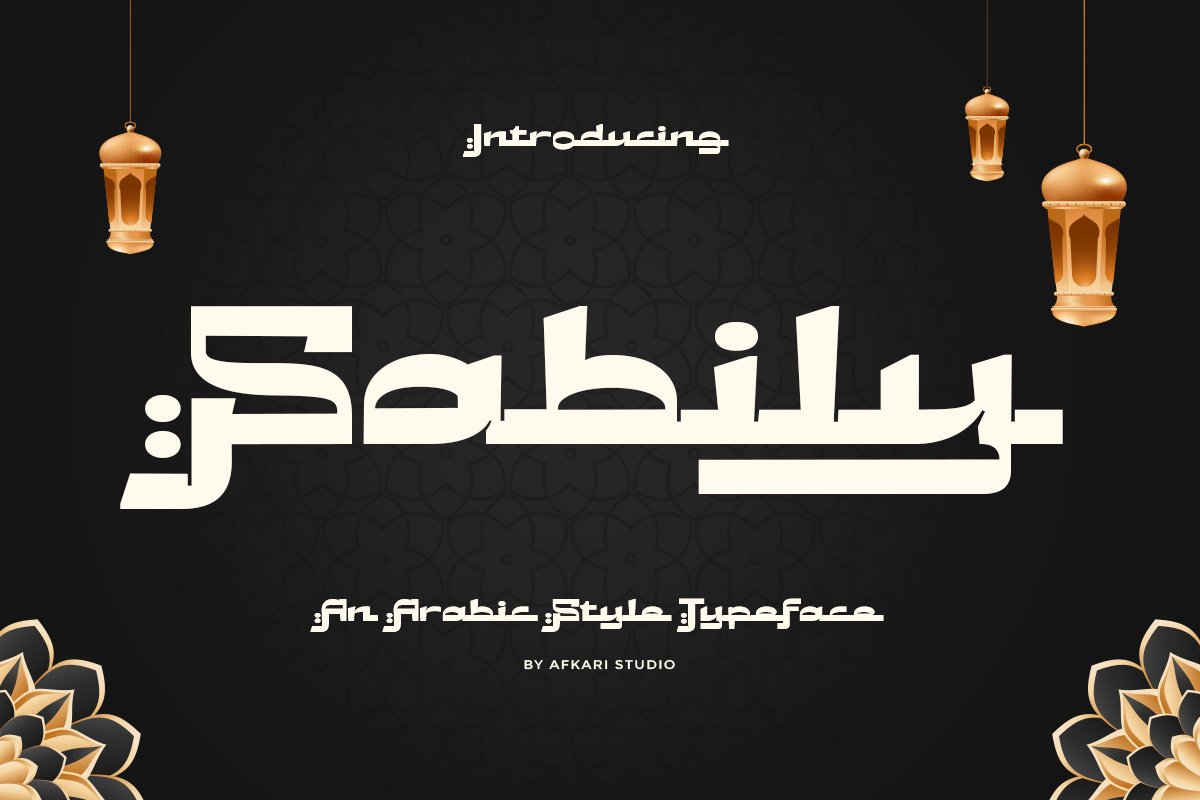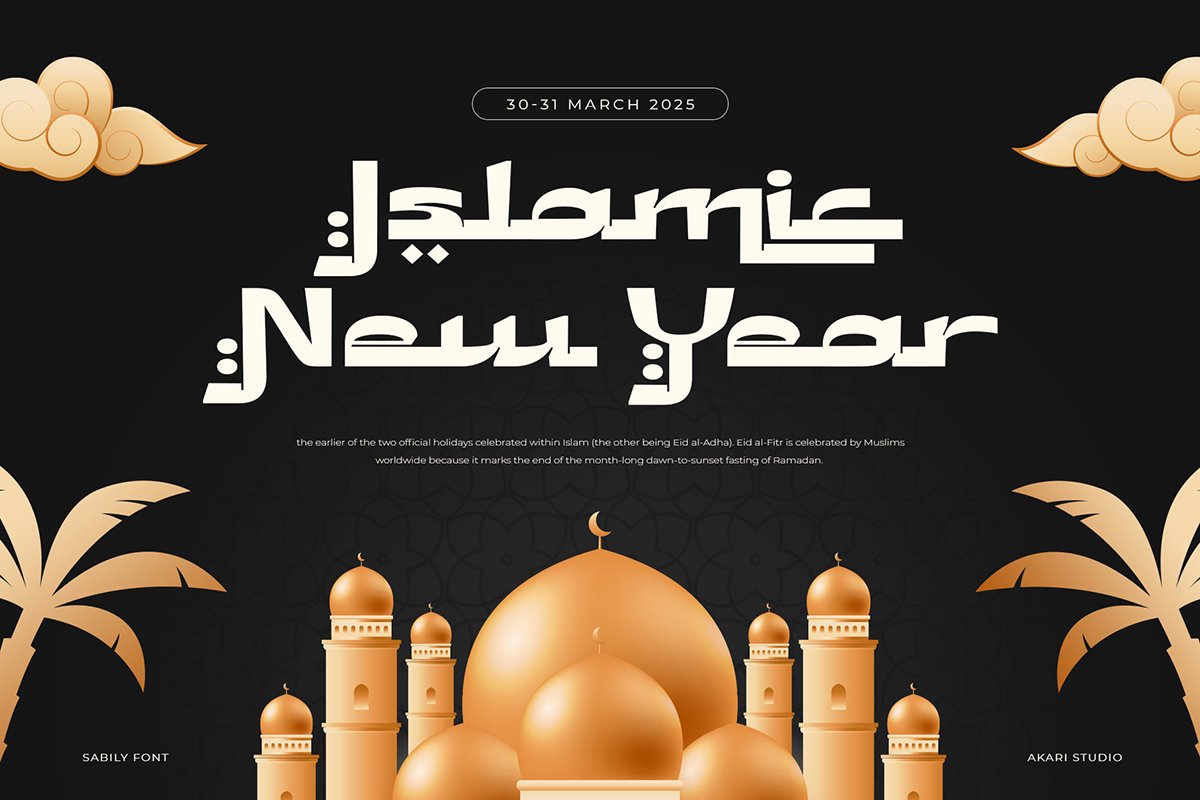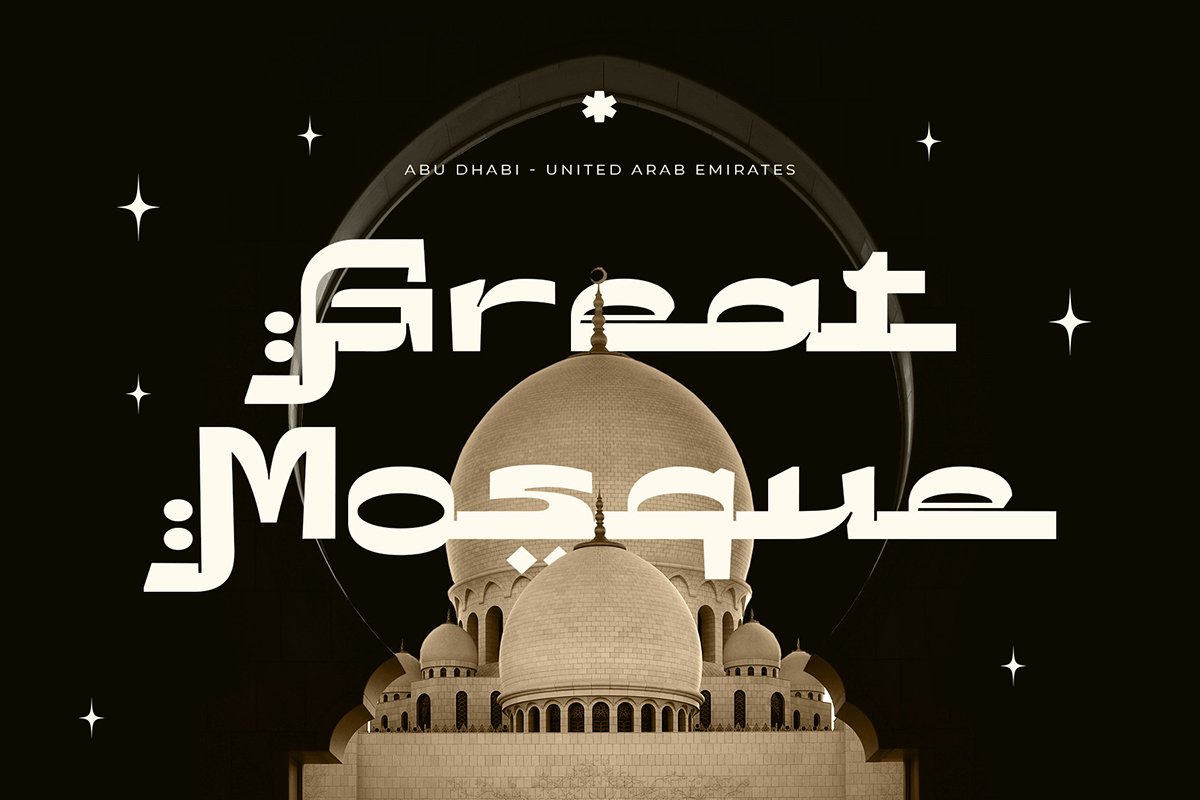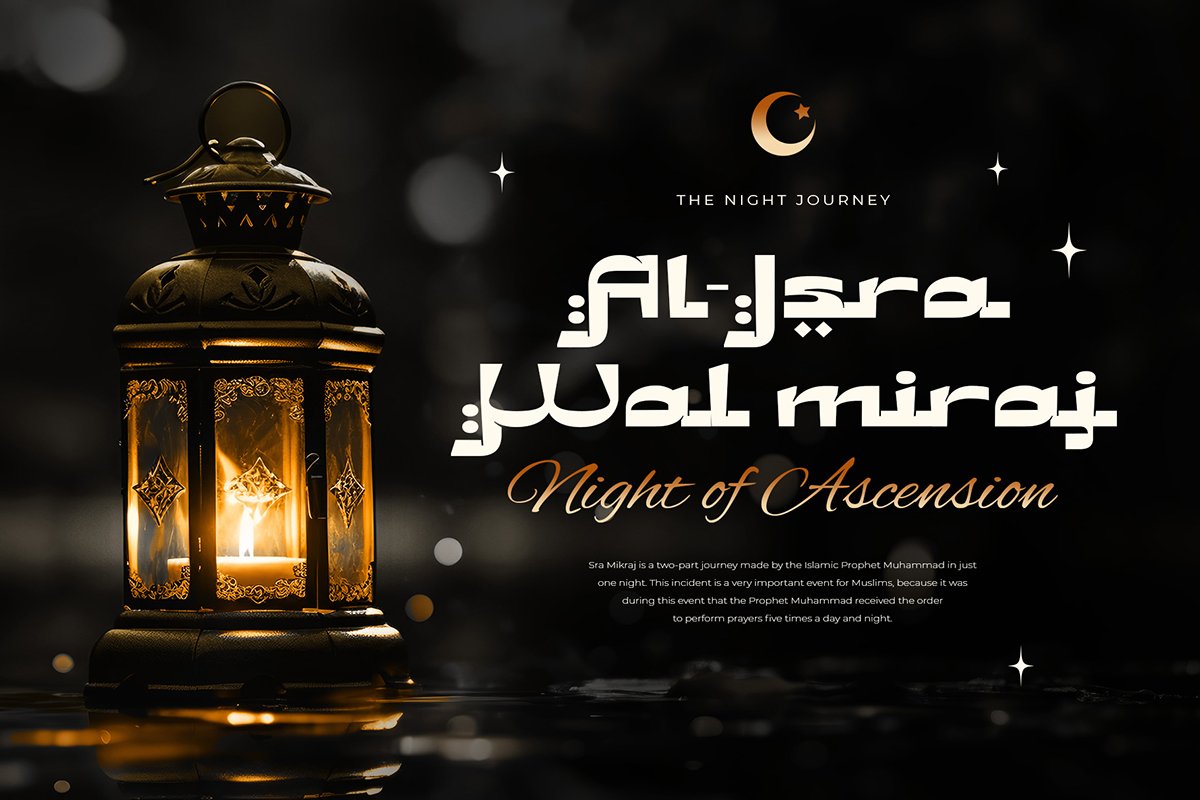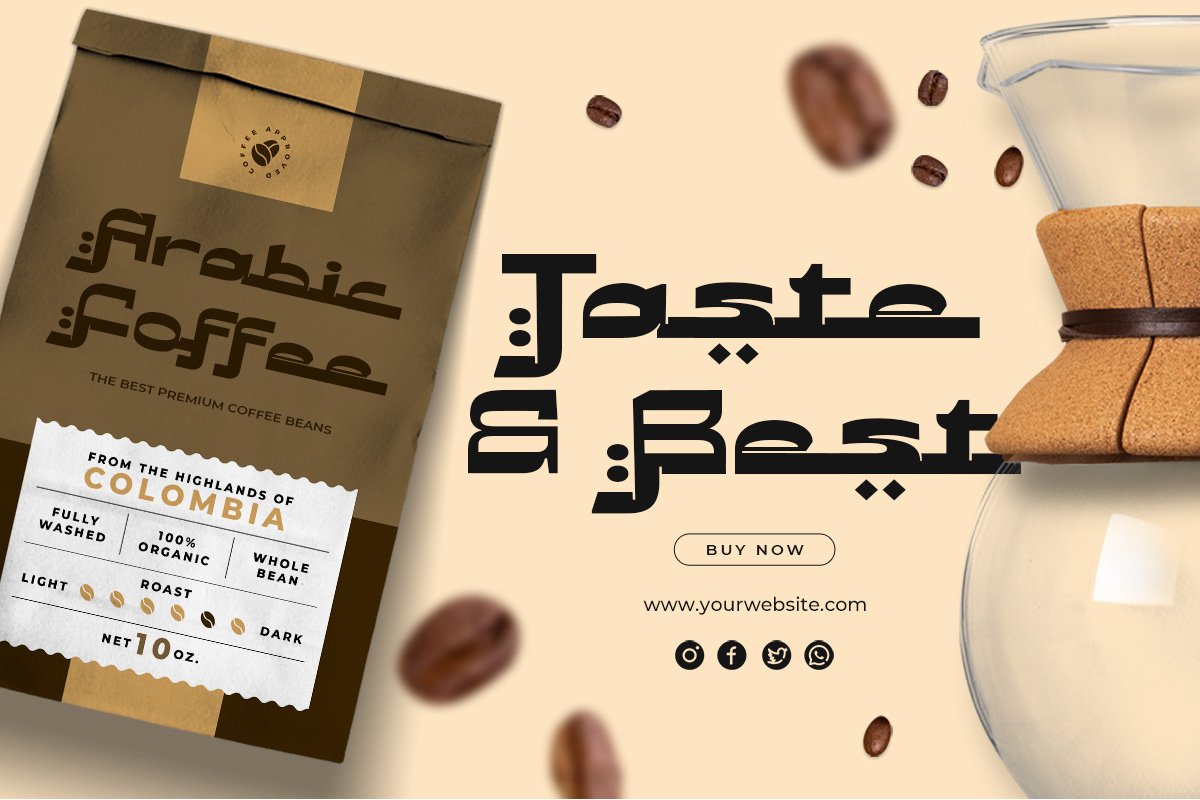
Introducing Sabily – Arabic Style Typeface! It is a refined Arabic-style typeface that embodies the elegance and intricacy of traditional Arabic calligraphy. Designed to seamlessly blend classical aesthetics with contemporary functionality, it offers a unique and versatile typographic experience. Its fluid curves and delicate details are perfect for capturing the beauty of Arabic script, while ensuring readability and clarity across various media. Ideal for both display and text use, Sabily enhances the visual appeal of any project, from editorial designs to branding and beyond.